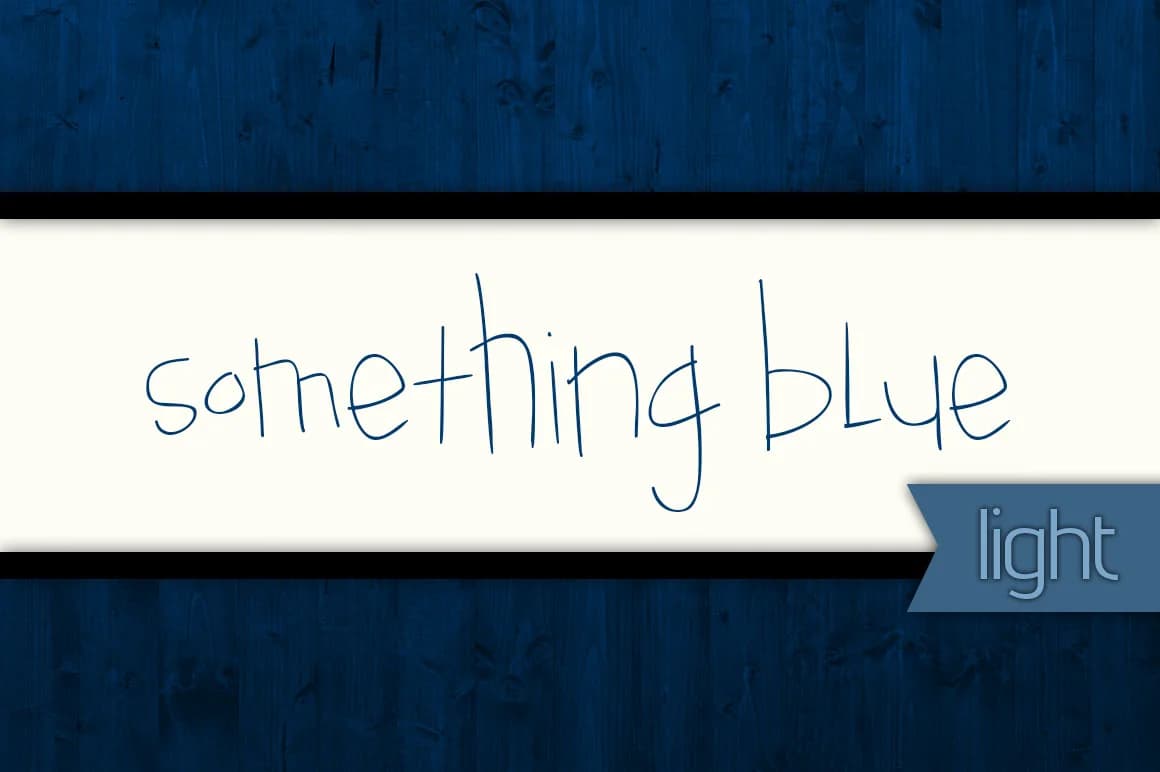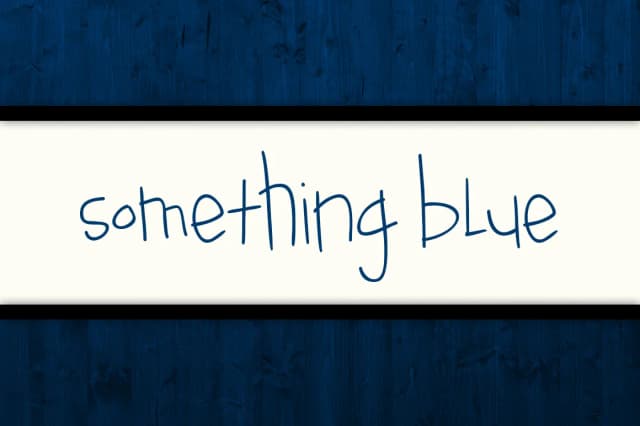
About Something Blue Light Font
Something Blue Light Font by brittneymurphydesign is a refined script typeface featuring graceful, flowing letterforms that authentically capture the essence of traditional hand-lettered calligraphy and classical letterform design. This lightweight design balances ornamental sophistication with excellent readability across all font sizes, making it equally effective for prominent display headlines, prominent signage, and extended body copy applications where both elegance and clarity need to coexist harmoniously. The typeface truly excels in specialty design work and occasions-based projects that demand sophisticated visual refinement. Wedding stationery suites gain significant impact from its romantic aesthetic, from formal invitations to personalized thank-you cards, custom announcements, and keepsake pieces. It works wonderfully for upscale brand identity systems, artisanal food and specialty cosmetic product packaging, boutique stationery collections, and minimalist social media templates for luxury brands and discerning small businesses. The delicate letterforms also translate beautifully to printed event programs, custom vinyl home dΓ©cor accents, hand-lettered invitation suites, prestige business card designs, and retail signage. The font integrates smoothly with major design platforms and specialty cutting workflows for seamless production and printing. Discover Something Blue Light Font on Creative Fabrica and add understated sophistication to your next branding or design project.
Something Blue Light Font is a script font that shines as a display or heading face. Pair it with a clean sans-serif or serif font for body text β the contrast creates a clear hierarchy while the two styles stay balanced and easy to read.